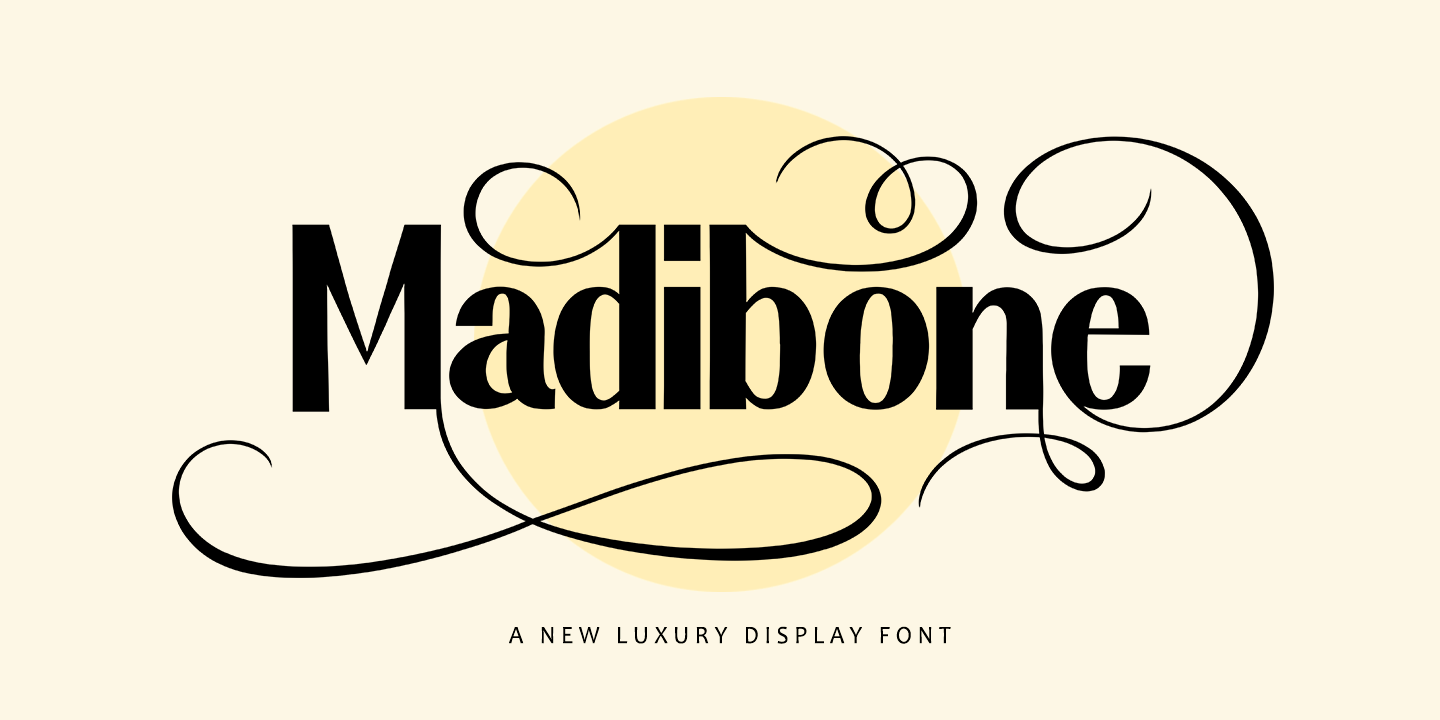
Madibone
Madibone is a display sans font family published by MasterType.
Madibone is my new elegant Sans serif font that will give your project a touch of glitz and style. It’s perfect for any type of logo, branding,
monograms and wedding invitations, blog titles, and more.